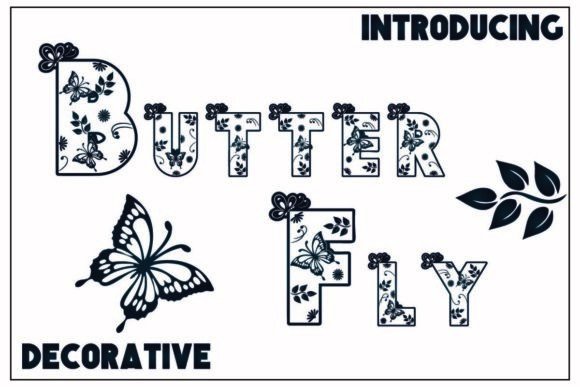
The Sweet Freedom of Butterfly Font: A Designer’s Delight
I still remember the day I stumbled upon the Butterfly font while working on a whimsical garden-themed project for a client. I had been searching for the perfect font to bring the design to life, but everything I found was either too dull or too over-the-top. That’s when I discovered Butterfly – a lovely and bright decorative font that instantly captured the playful essence of the project. In this article, I’ll share my experience with Butterfly font, its features, and how to make the most of it in your creative endeavors.
An Honest Review of Butterfly Font
As a designer, I’m always on the lookout for fonts that can elevate my projects without overwhelming them. Here’s what I love about Butterfly font:
• ✨ Adorable and playful: Butterfly font is perfect for designs that require a touch of whimsy and charm.
• ✅ Easily legible: Despite its decorative nature, the font remains clear and easy to read, making it suitable for a variety of applications.
• 💫 Versatile: Butterfly font can be used in various design contexts, from digital graphics to print materials.
However, I did notice a few quirks:
• 🤔 Limited use in formal contexts: Due to its playful nature, Butterfly font might not be the best fit for formal or professional designs.
• ⚠️ Glyph compatibility issues: Some glyphs might not work seamlessly across all platforms or software, so it’s essential to test the font thoroughly.
The Backstory of Butterfly Font
Butterfly font was designed with the intention of capturing the carefree essence of a butterfly’s gentle flight. The designer aimed to create a font that would bring a touch of playfulness and joy to various design projects. Although the designer’s identity remains unknown, their work has undoubtedly made a significant impact on the design community.
What is the best use for Butterfly font? Butterfly font is ideal for designs that require a playful and whimsical touch, such as garden-themed projects, children’s books, or creative branding.
Is Butterfly font suitable for formal designs? No, due to its playful nature, Butterfly font might not be the best fit for formal or professional designs.
Does Butterfly font support OpenType features? Yes, Butterfly font supports OpenType features, glyphs, and stylistic alternates, making it a versatile choice for designers.